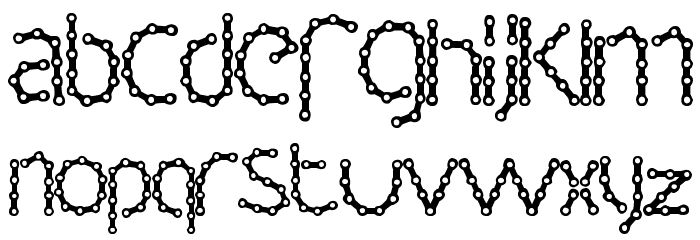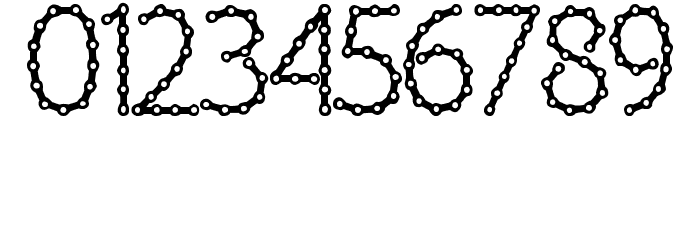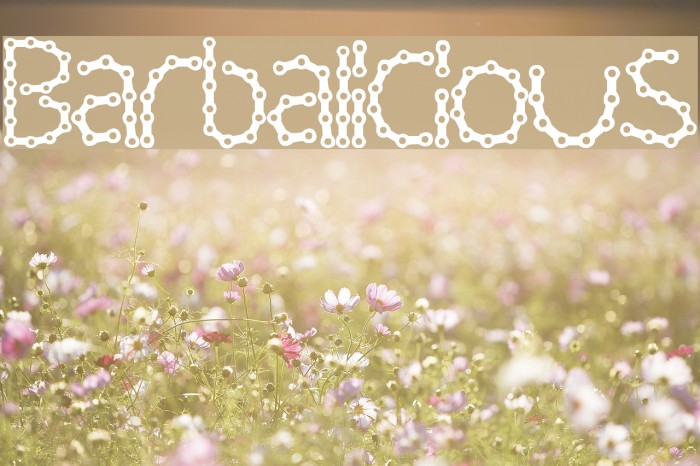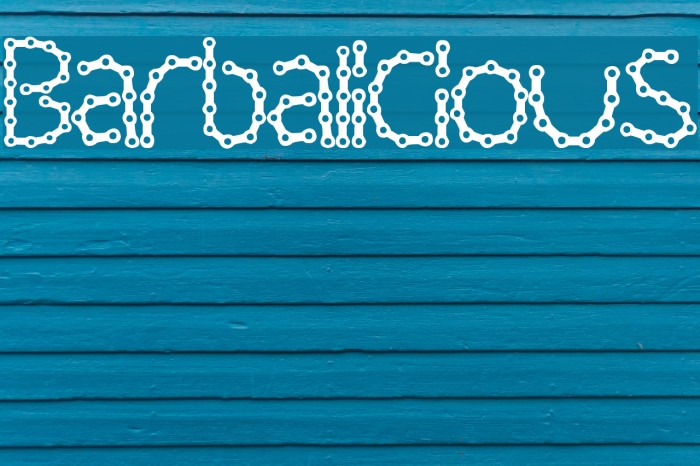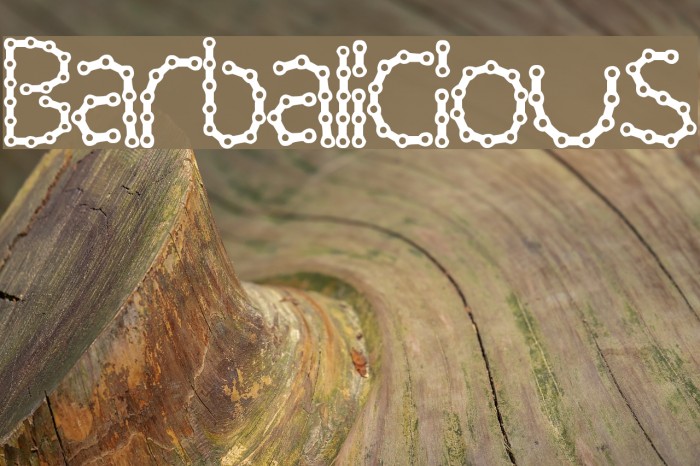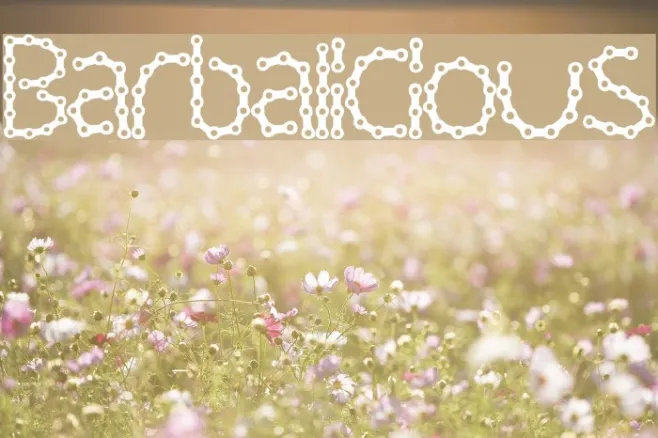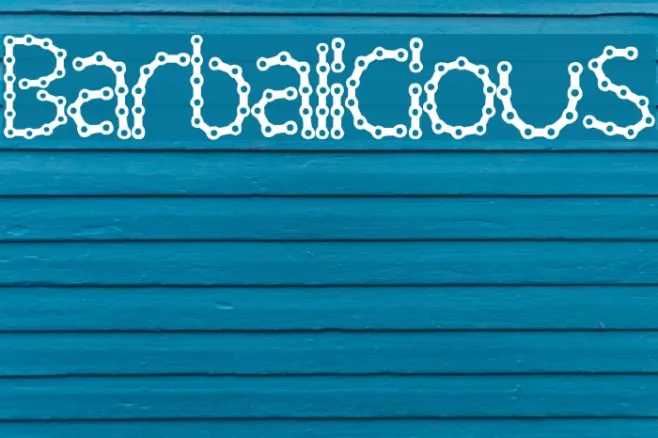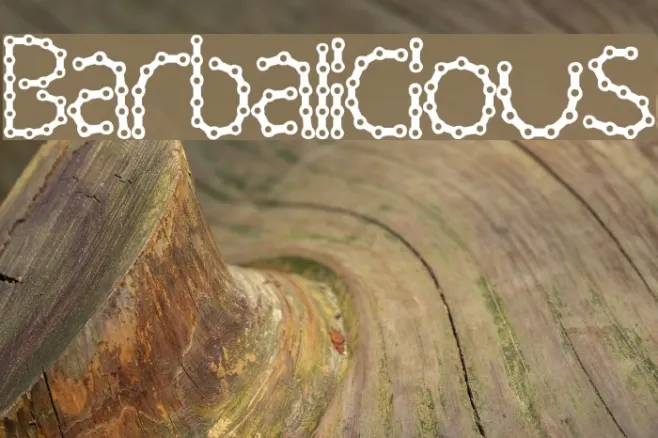
Barbalicious Font
This font features a unique and playful design, reminiscent of a chain or beaded structure. Each character is composed of interconnected circles, creating a visually intriguing pattern that stands out. The uppercase and lowercase letters maintain a consistent style, with rounded edges and a uniform thickness throughout. Numbers and special characters follow the same design principle, ensuring a cohesive look across all elements. The font's decorative nature makes it ideal for creative projects where a bold and distinctive appearance is desired.
A playful, chain-like decorative font with interconnected circular elements.
- Font: Barbalicious
- Proposed Projects: Ideal for creative projects such as posters, logos, and event invitations where a unique and eye-catching font is needed.
- Use Case: Logos, Posters, Event Invitations